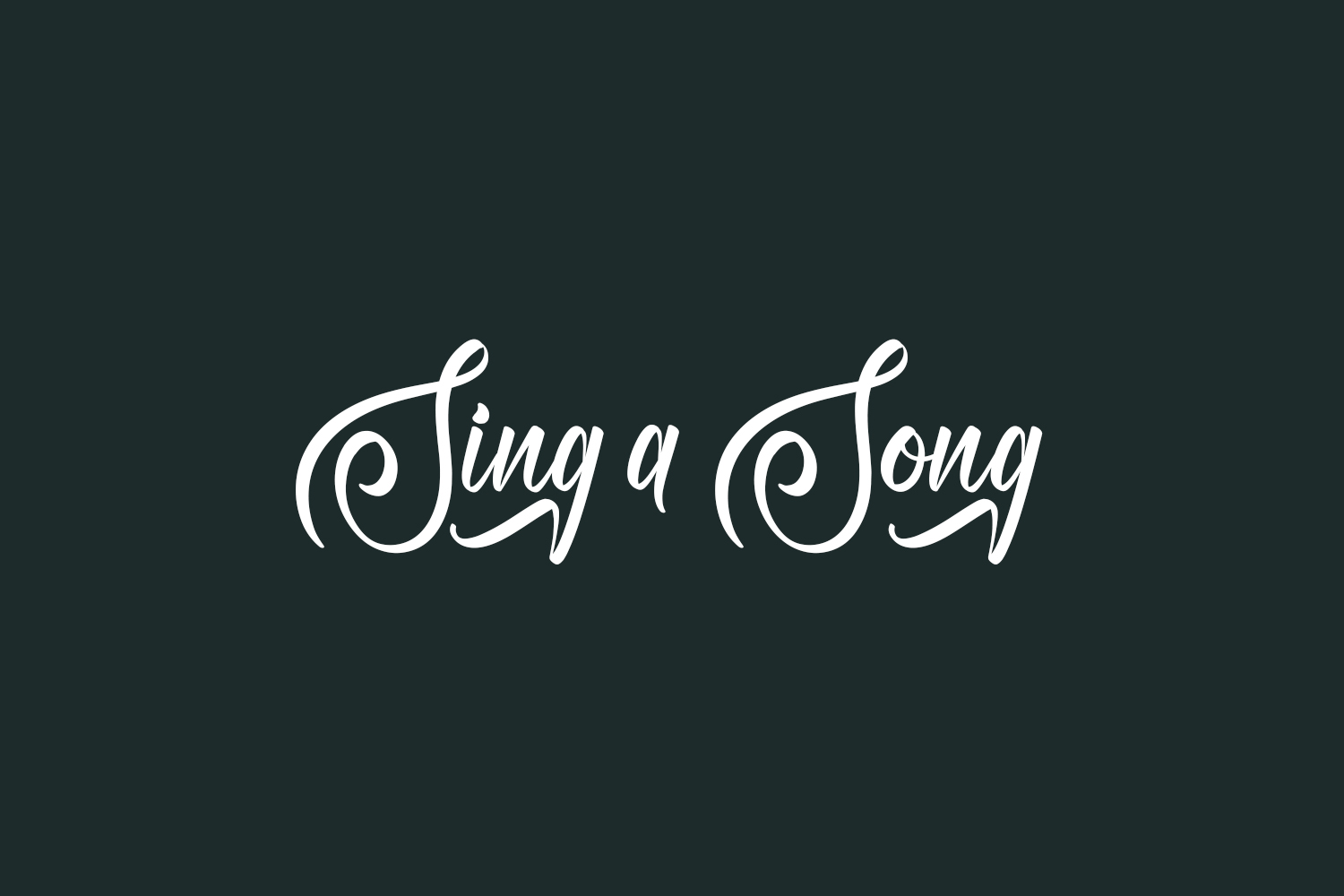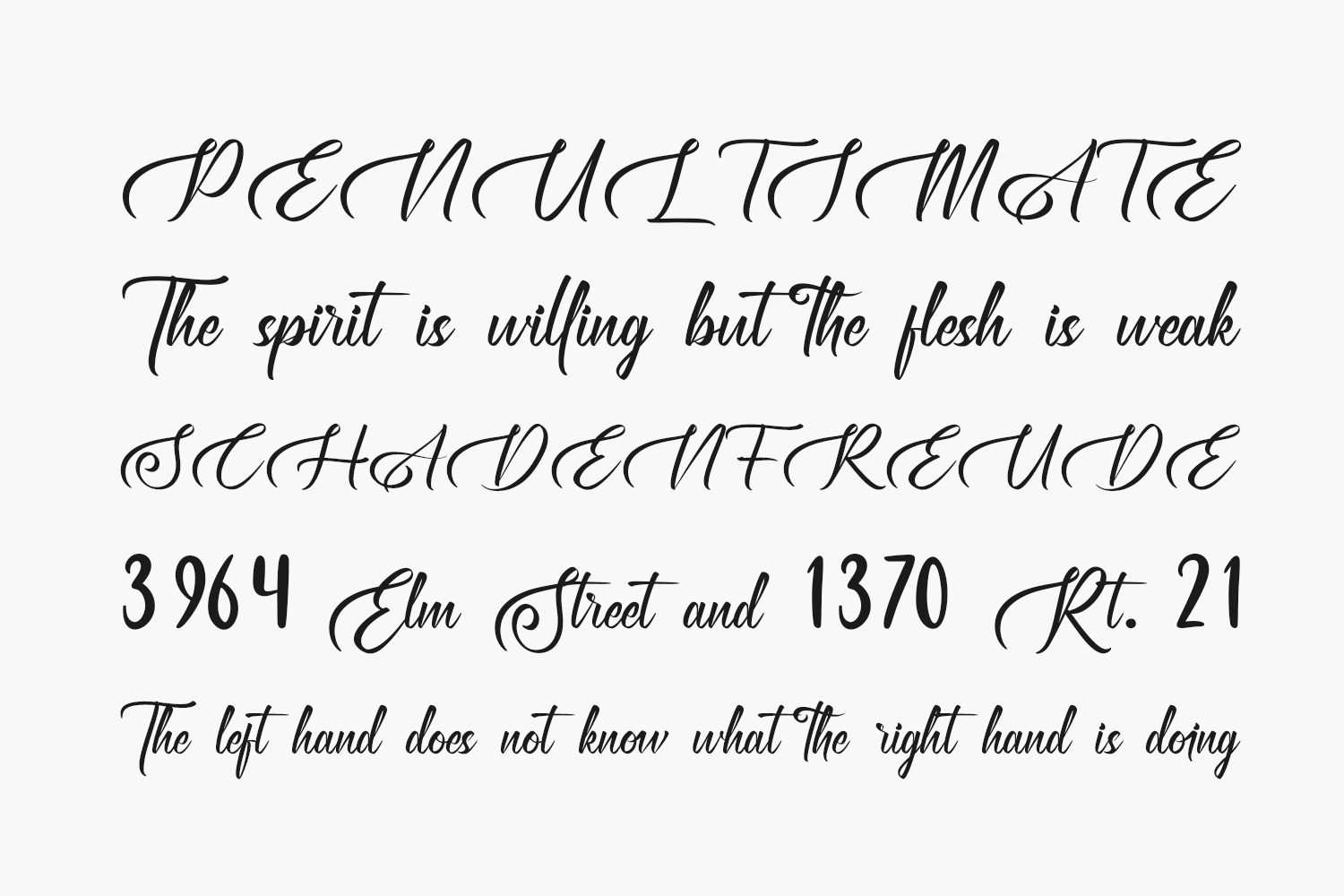
Sing A Song Free Font is a lovely and delicate script font that exudes elegance and class. This font was particularly crafted for those who need a beautiful and refreshing look to their designs. Sing A Song Free Font was designed by RaisProject is a demo and free for personal use only. Please purchase the full version for commercial use.